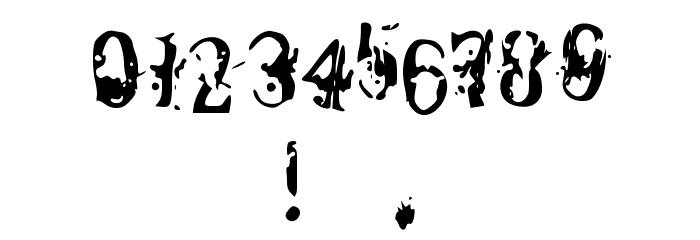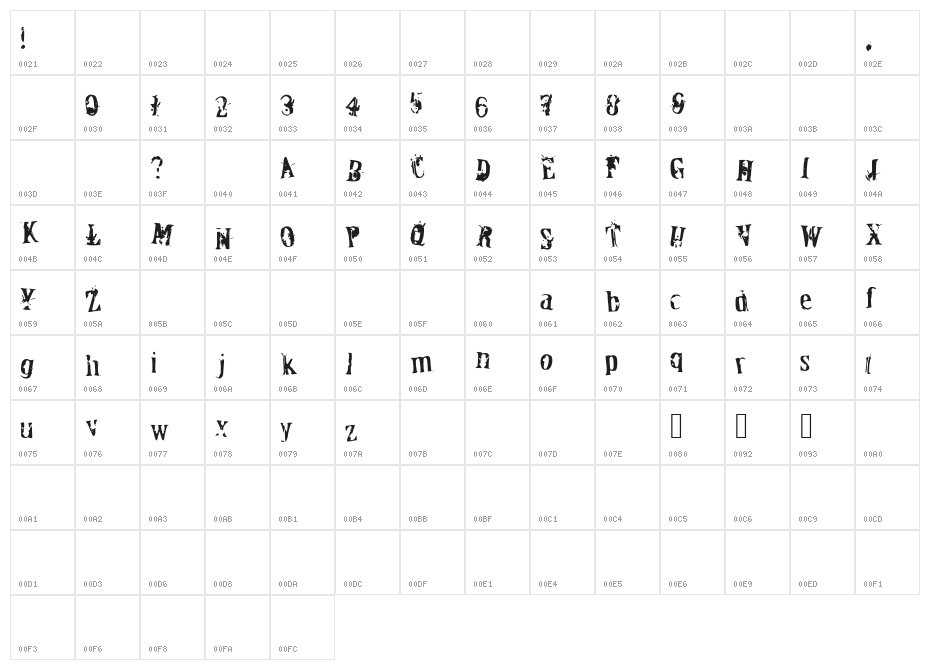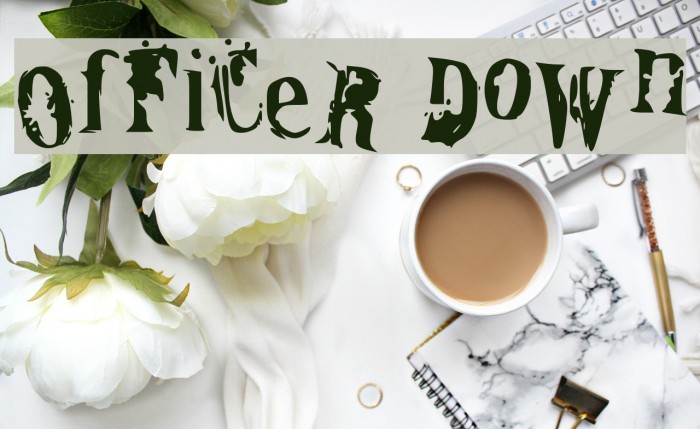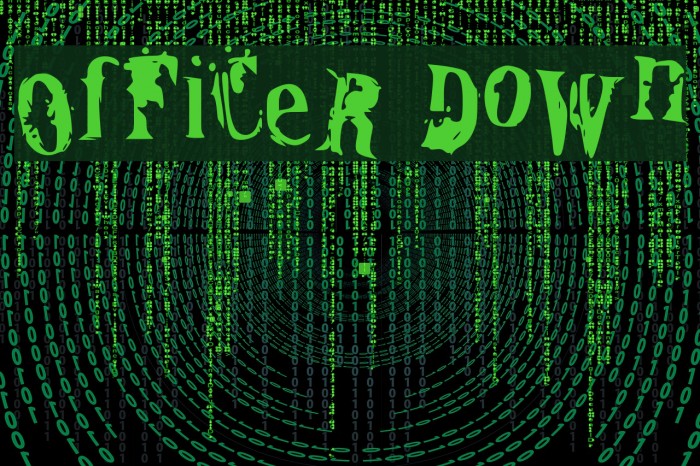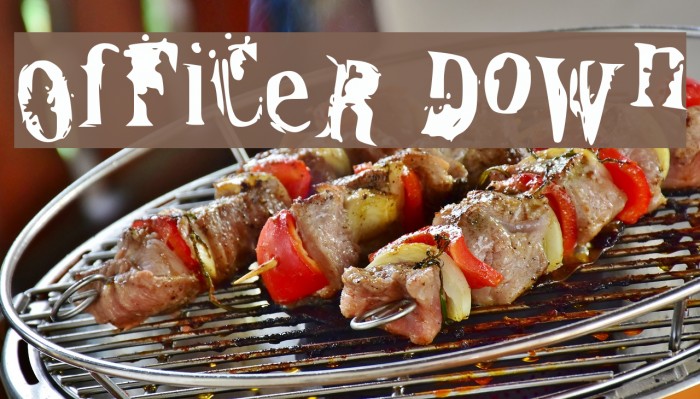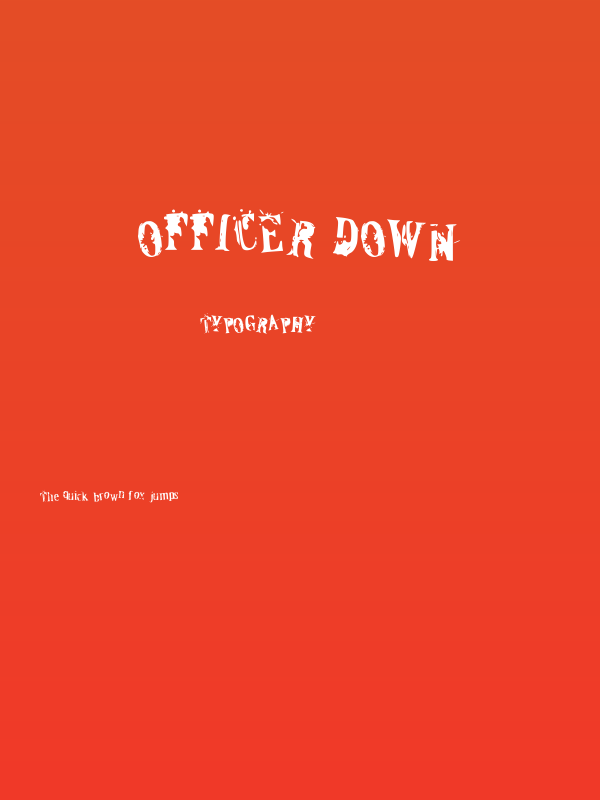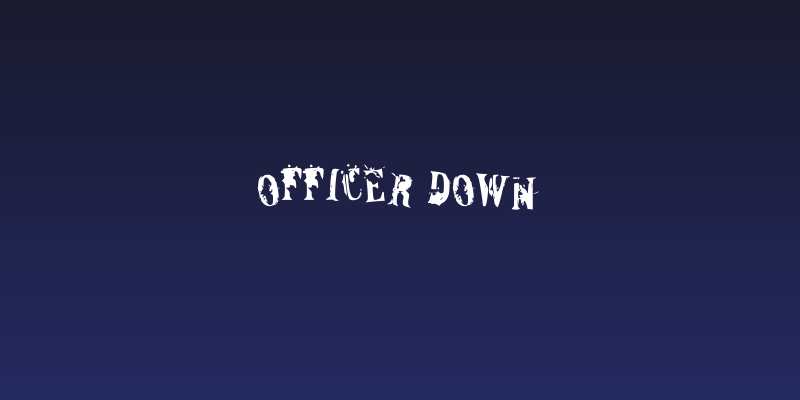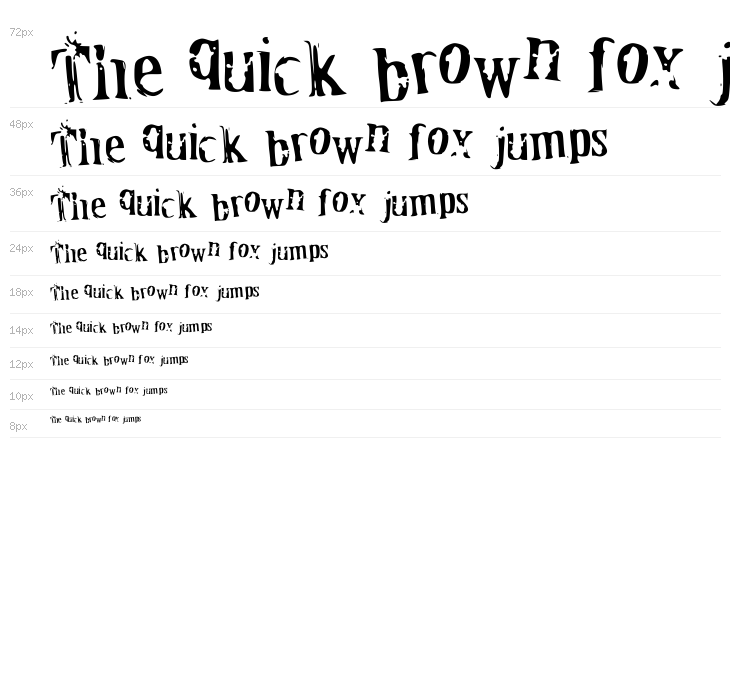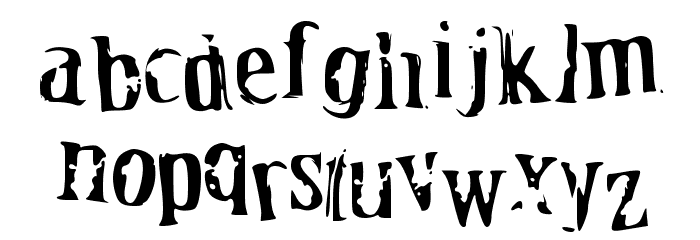
OfFiCeR DoWn Font
OfFiCeR DoWn Description
This font exhibits a distressed and grungy style, characterized by irregular edges and a weathered appearance. The letters appear as if they have been eroded or splattered, giving a chaotic and dynamic feel. The uppercase and lowercase characters maintain a consistent theme, with each letter showing unique distress marks that add to the overall aesthetic. The numbers and special characters follow the same design, ensuring a cohesive look across all elements. This font is ideal for projects that require a bold and edgy statement, capturing attention with its unconventional and artistic flair.
| Overall Style | Grunge, Artistic |
| Proposed Projects | Album covers, horror movie posters, street art designs, edgy branding materials. |